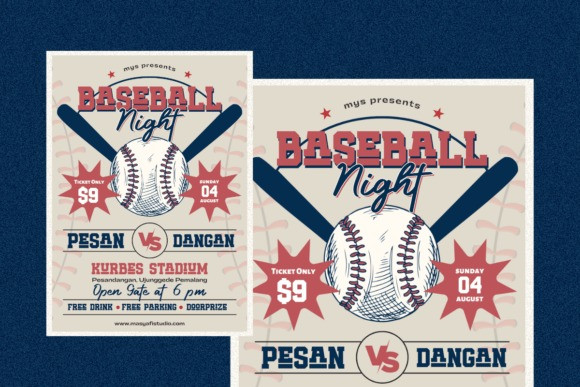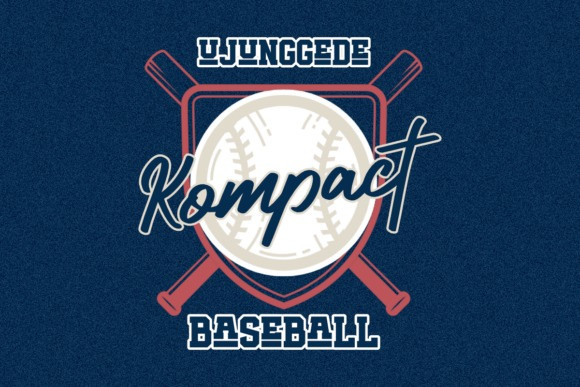
Farmer Vintage Font Duo
Farmer Vintage Font Duo is a bold slab serif and script font duo inspired by classic sports typography, particularly from vintage baseball and basketball designs. This versatile display font blends athletic energy with retro character, making it an excellent choice for projects that need a strong, nostalgic presence.
Ideal for book covers, posters, packaging, apparel, merchandise, logos, and more, Farmer Vintage adds a sporty yet timeless edge to any creative layout. If you’re aiming to achieve a varsity-inspired aesthetic or looking to infuse vintage charm into your work, this dynamic font duo delivers impact with style.